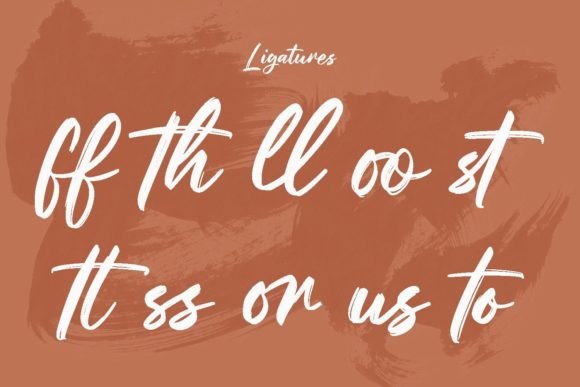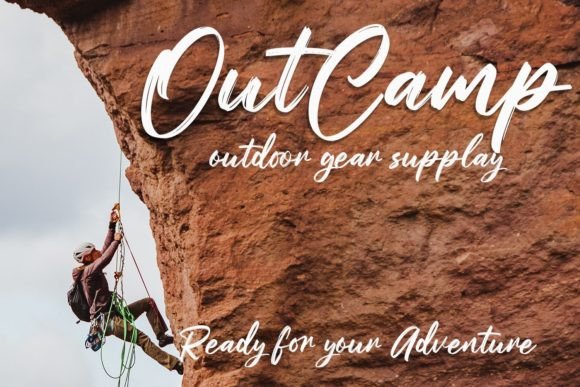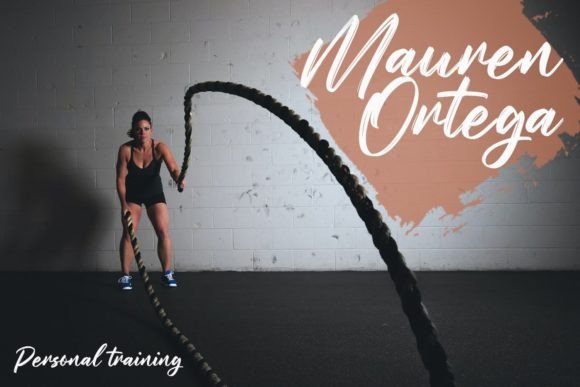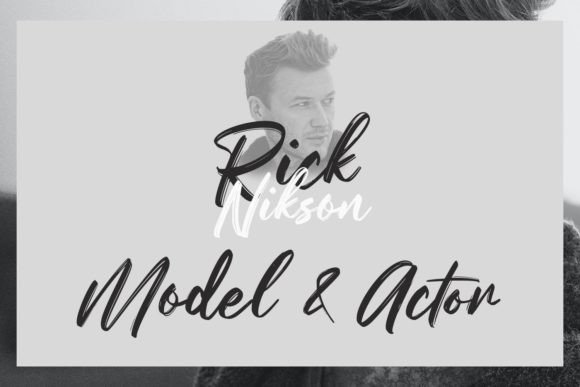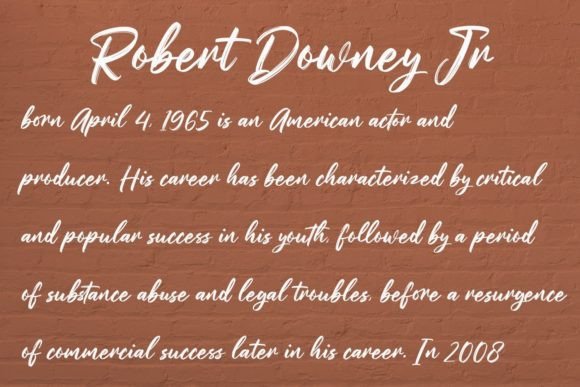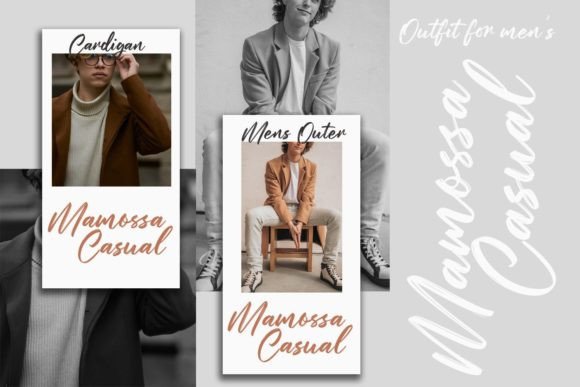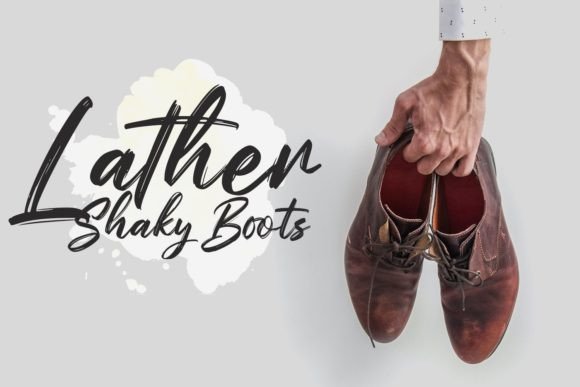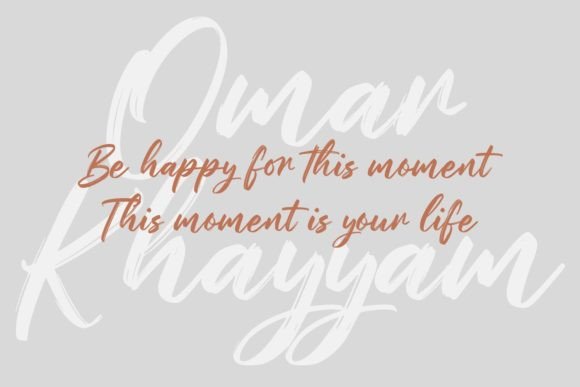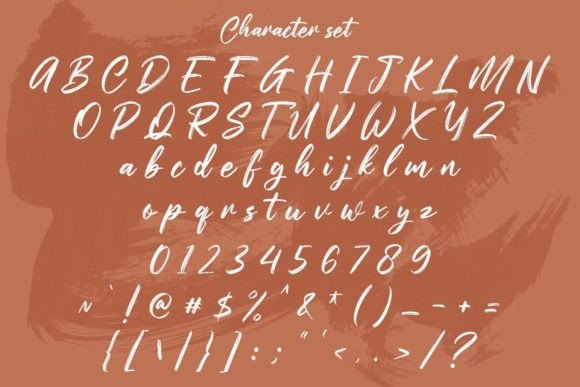
Rochestra Font
About Rochestra Font
**Rochestra** is a font that epitomizes modernity and style, designed in a handwritten brush style that exudes confidence and sophistication. Its contemporary and stylish appearance makes it a perfect choice for various design projects, adding a touch of elegance and flair. By incorporating **Rochestra** into your designs, you can infuse them with a sense of confidence and creativity, ensuring they stand out with striking impact.
**Modern and Stylish Design**: **Rochestra** features a modern and stylish design that is visually appealing and on-trend. The font’s contemporary aesthetics and clean lines create a sense of sophistication and elegance, making it ideal for projects that demand a modern and stylish touch. Its trendy appearance adds a touch of chic and flair to the text, ensuring it looks current and fashionable.
**Handwritten Brush Elegance**: The handwritten brush style of **Rochestra** adds an element of authenticity and warmth to the text. Its fluid strokes and natural flow create a genuine and organic appearance, making it suitable for designs that require a touch of handcrafted elegance. The font’s handwritten charm adds a personal and artistic vibe to the content, enhancing its overall appeal.
**Confidence and Impact**: **Rochestra** exudes confidence and impact, making it a valuable asset for projects that aim to make a statement. Its bold and expressive letterforms command attention and leave a lasting impression on viewers. The font’s confident demeanor adds a sense of authority and boldness to the text, ensuring it stands out with a strong visual presence.
**Versatile Application**: **Rochestra** is highly versatile and can be applied to a wide range of design contexts. Whether used in logos, branding, posters, social media graphics, or product packaging, the font seamlessly integrates into different projects. Its adaptability allows it to enhance diverse creative ideas, adding a touch of contemporary elegance and style.
In summary, **Rochestra** is more than just a font; it’s a symbol of modernity, confidence, and elegance. Its modern and stylish handwritten brush design, coupled with its versatility, makes it a valuable choice for a variety of projects. By incorporating **Rochestra** into your designs, you can create a bold and sophisticated visual experience, ensuring your projects resonate with confidence and creativity. Let **Rochestra** be the confident and stylish companion that adds a touch of elegance to your creative endeavors, making them truly impactful and memorable.